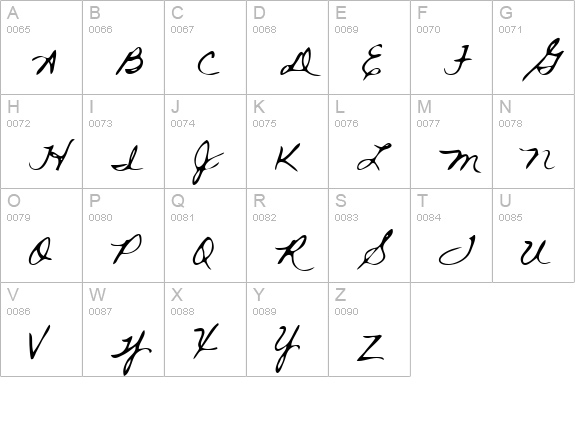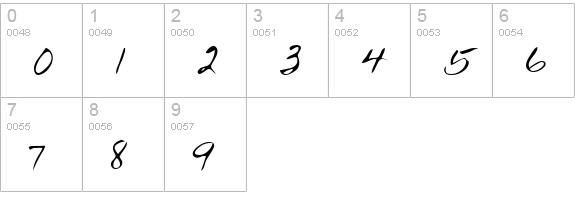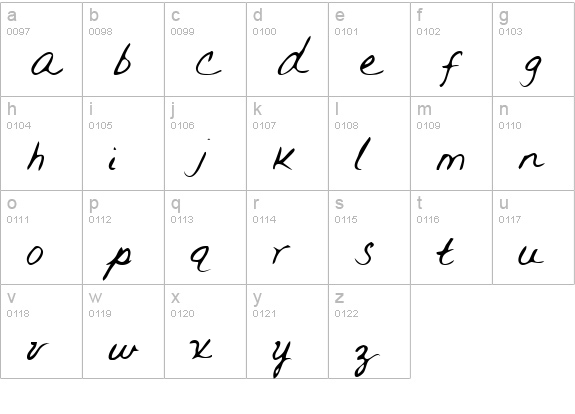
Rai Regular is the standard, neutral variant in the Rai typeface family \xE2\x80\x94 well suited to general body text, paragraphs, and standard typographic work.